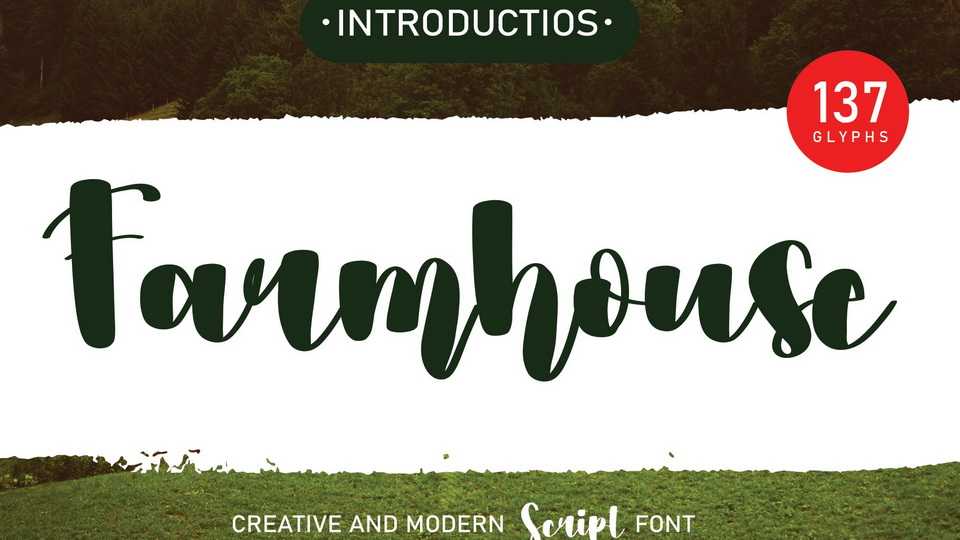
Download Farmhouse font, a natural hand painted brush typeface made of beautiful bold strokes. Farmhouse font is perfect for your creative ideas, both formal and informal.